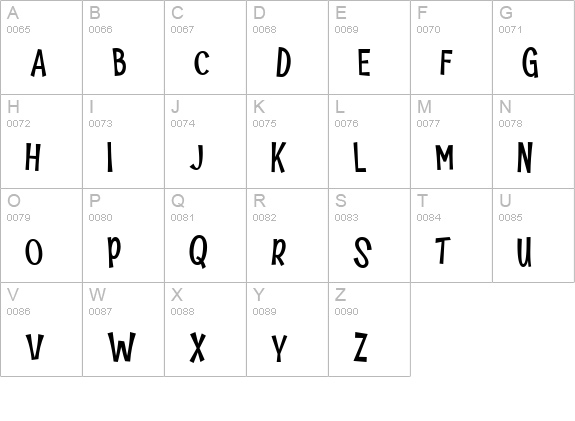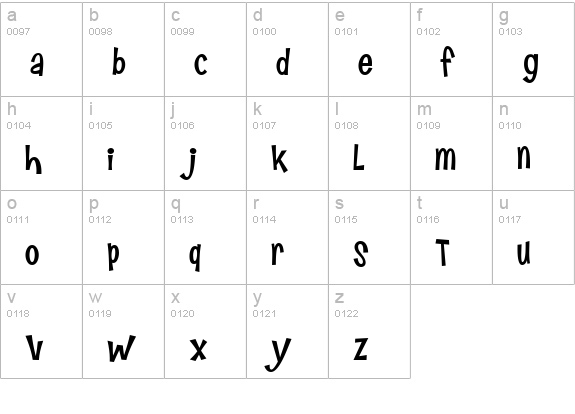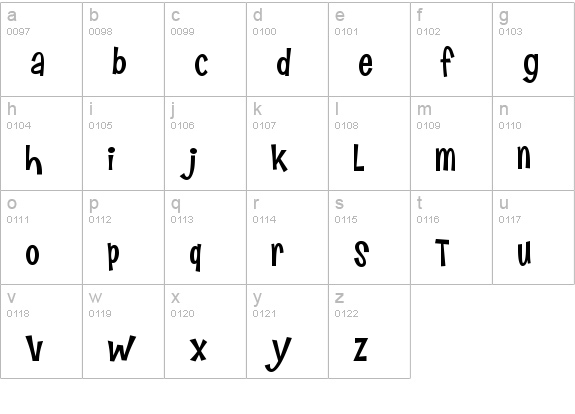
Introducing Snoopy Snails NF, a whimsical and playful font that will add a touch of fun to any design project. This font is inspired by the charming world of snails, combining their adorable shapes with a modern twist. With its quirky and lively character, Snoopy Snails NF is perfect for children's books, party invitations, posters, and so much more. But what makes Snoopy Snails NF even more amazing is that it is completely free! Yes, that's right. This font is freely available to download at FontsMarket.com. Whether you're a professional designer or a hobbyist, you can now access this delightful font without breaking the bank. The versatility of Snoopy Snails NF is truly remarkable. Its clean and legible letters make it suitable for both large headlines and small body text. The carefully crafted curves and unique details will make your designs stand out from the crowd. Whether you're aiming for a quirky and playful look or a more sophisticated vibe, Snoopy Snails NF has got you covered. With its wide range of glyphs and special characters, Snoopy Snails NF allows you to unleash your creativity and bring your ideas to life. Add a touch of whimsy to your next project with this charming font. Its cheerful and friendly nature will bring a smile to anyone's face. So why wait? Download Snoopy Snails NF for free at FontsMarket.com and start exploring the endless possibilities it offers. Whether you're designing for print or web, this font will add a touch of joy to all your creations. Don't miss out on this fantastic opportunity to enhance your designs with Snoopy Snails NF. Get it now and let your imagination run wild!